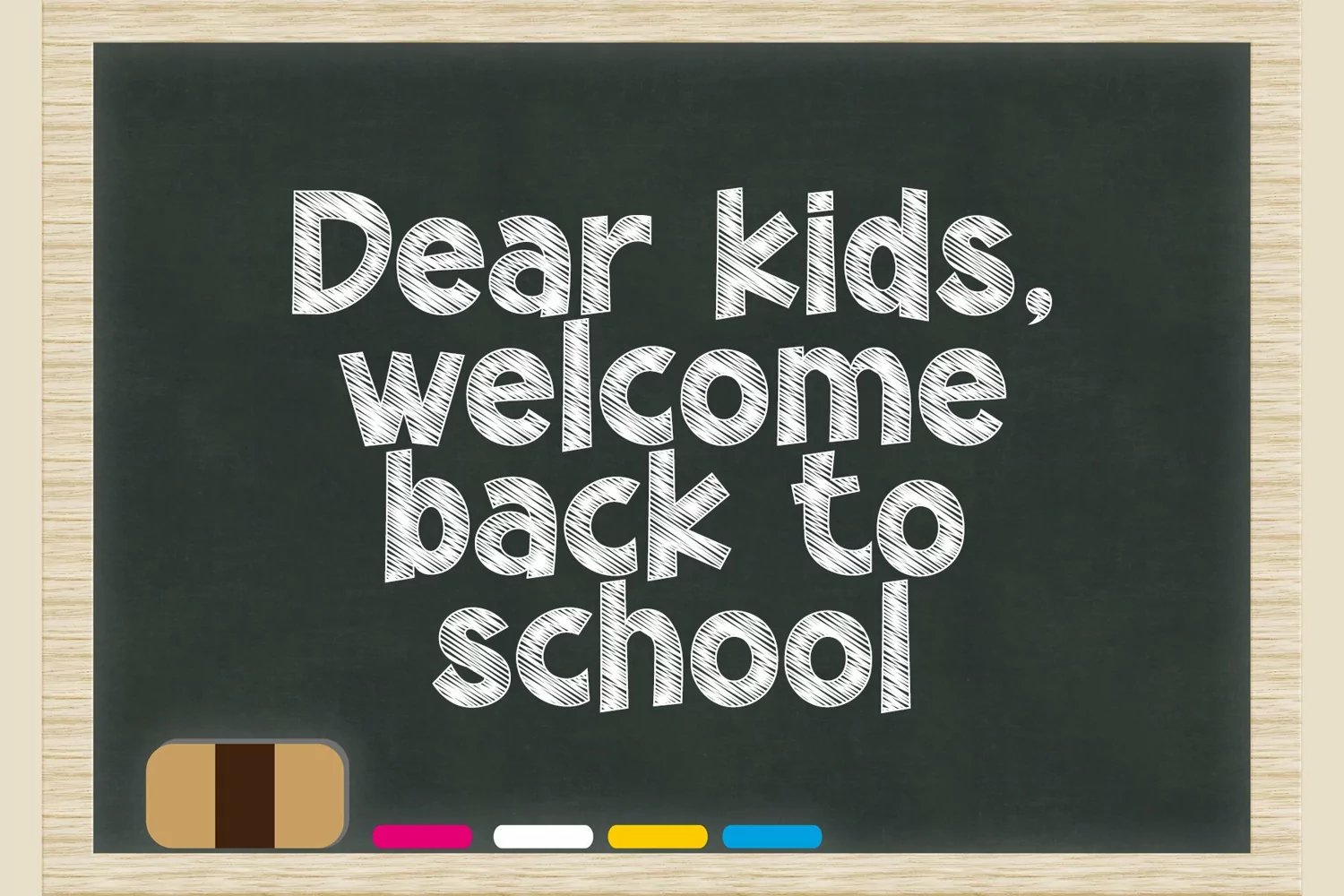
School and Chalk is kids-theme display font. This is cheerful, cute, and shining.
School and Chalk is so suitable for any children design, such as school theme, kindergarten, comic, cartoon, and many others.